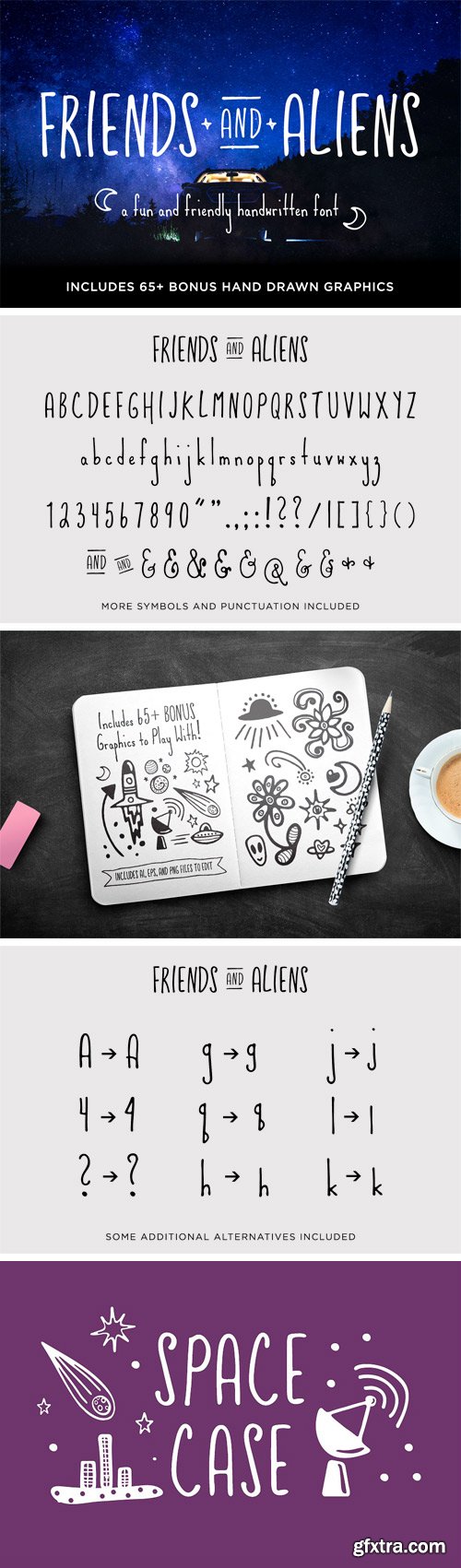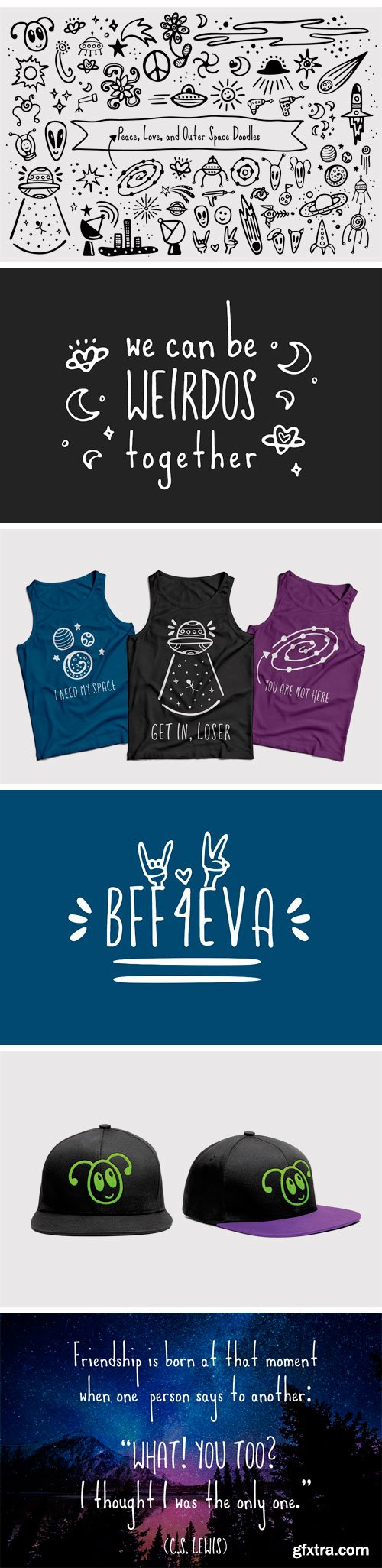
Introducing FRIENDS & ALIENS, an uppercase and lowercase handwritten font with over 65+ BONUS "Peace, Love, and Outer Space Doodles" graphic elements to alter and edit and play with as needed! Font includes uppercase, lowercase, punctuation, and numbers. This fun and friendly handwritten typeface can be used in personal and commercial projects. Some letters and punctuation and symbols include alternatives which can be accessed using glyphs in programs like Adobe Photoshop and Illustrator. Both OTF and TTF file types for "Friends & Aliens". Plus AI and EPS files (containing all bonus design elements) and individual PNG files for the graphics.